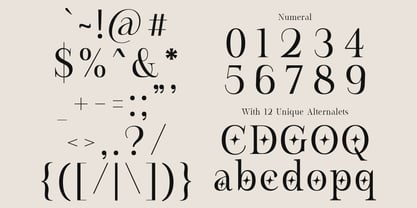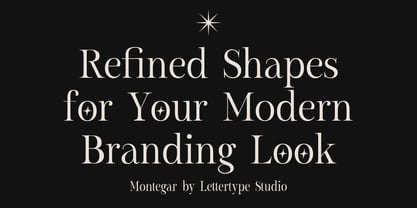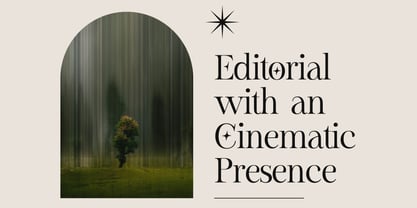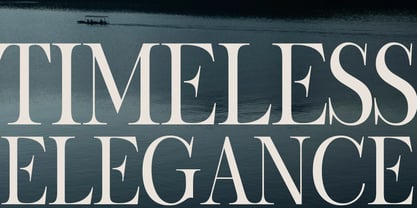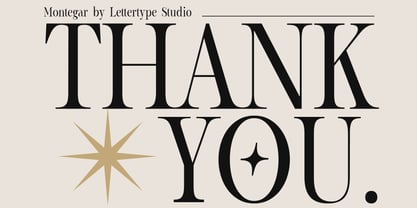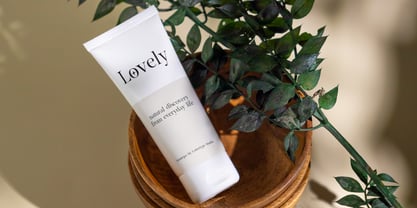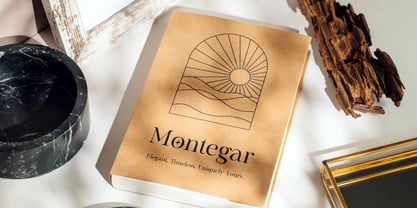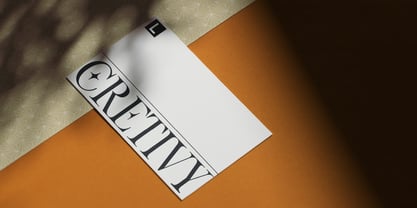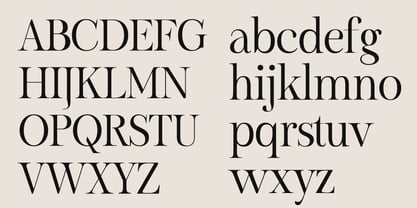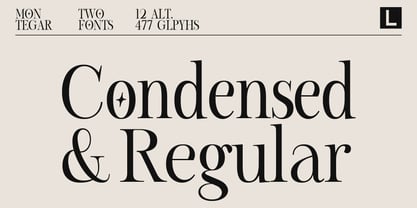
Montegar
por Lettertype Studio
La familia tipográfica Montegar fue diseñada por Diki Pradipta Tri Atmojo y publicada por Lettertype Studio. Montegar contiene 2 estilos y opciones de paquete familiar. Más información sobre esta familia
Montegar is a modern luxury serif font crafted for premium branding, editorial headlines, fashion identities, and cinematic typography. Built with elegant proportions, dramatic contrast, and refined serif detailing, Montegar delivers a sophisticated visual presence while remaining highly readable across display applications.
The font introduces subtle celestial-inspired star accents and sharp editorial cuts that create a memorable signature without overwhelming the typography. From perfume packaging and jewelry branding to boutique hotels, magazines, posters, and luxury campaigns, Montegar offers a balance between timeless elegance and contemporary artistic character.